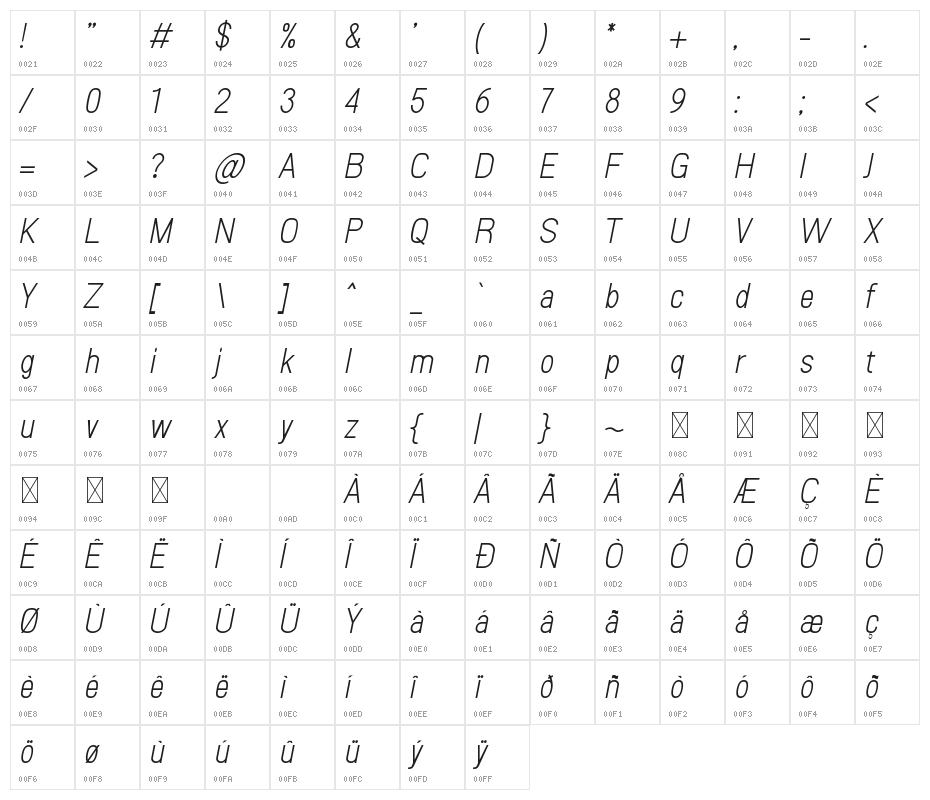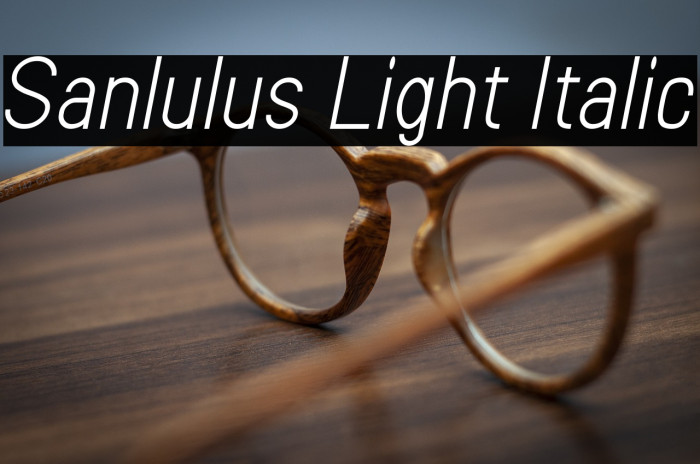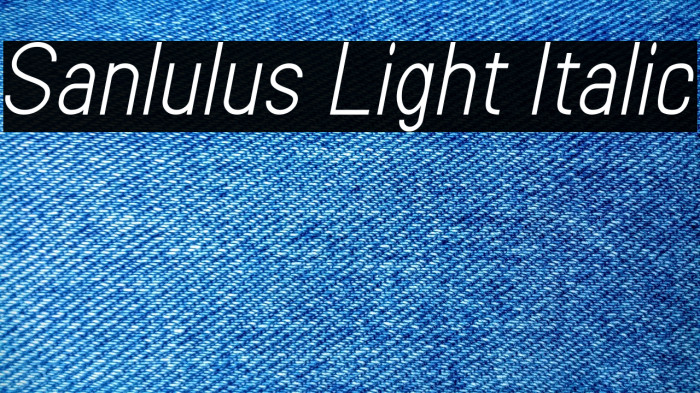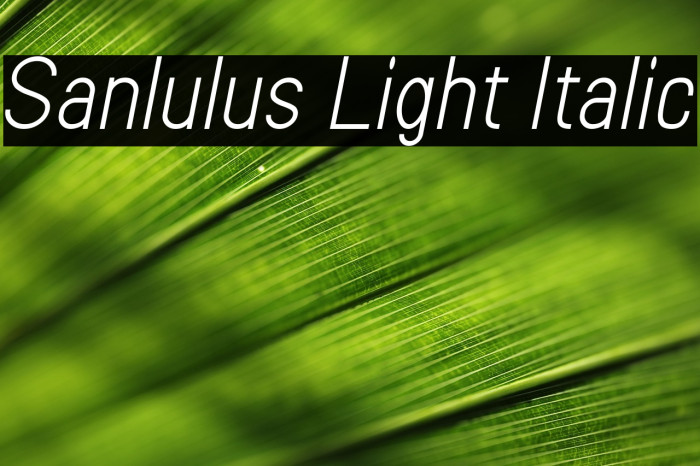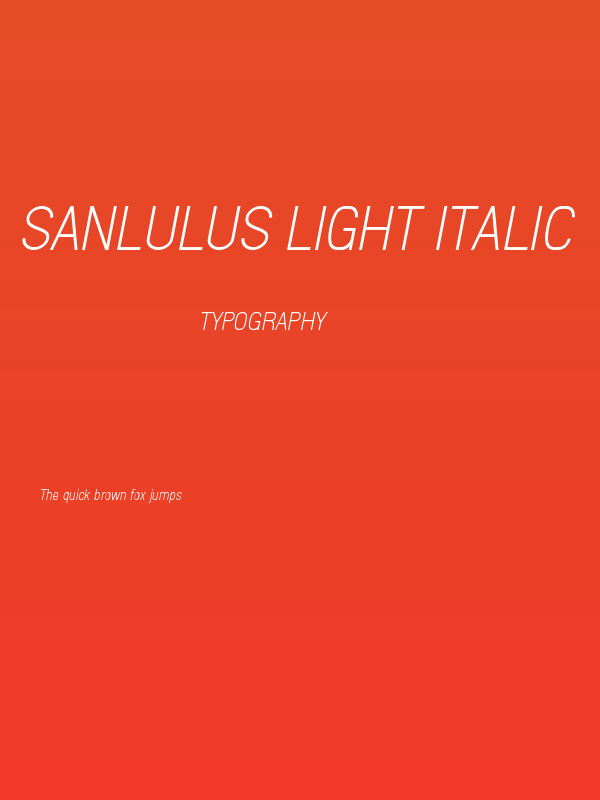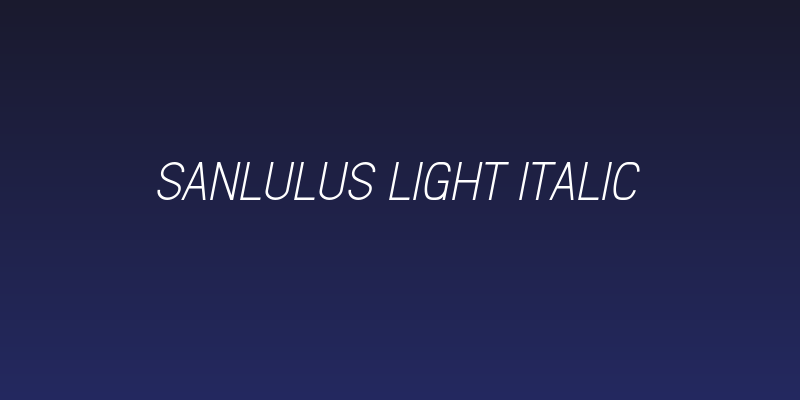
Sanlulus Light Italic Font
Sanlulus Light Italic Description
This font features a sleek and modern design with a light weight and italic style. The characters are slightly slanted, giving a sense of motion and elegance. The strokes are thin, contributing to a clean and airy appearance. The font maintains a consistent width across characters, ensuring readability while adding a touch of sophistication. Its sans-serif nature provides a contemporary feel, making it versatile for various design applications. The spacing between characters is normal, allowing for clear legibility without appearing cramped.
| Proposed Projects | Ideal for fashion magazines, modern branding, elegant invitations, and minimalist web design. |